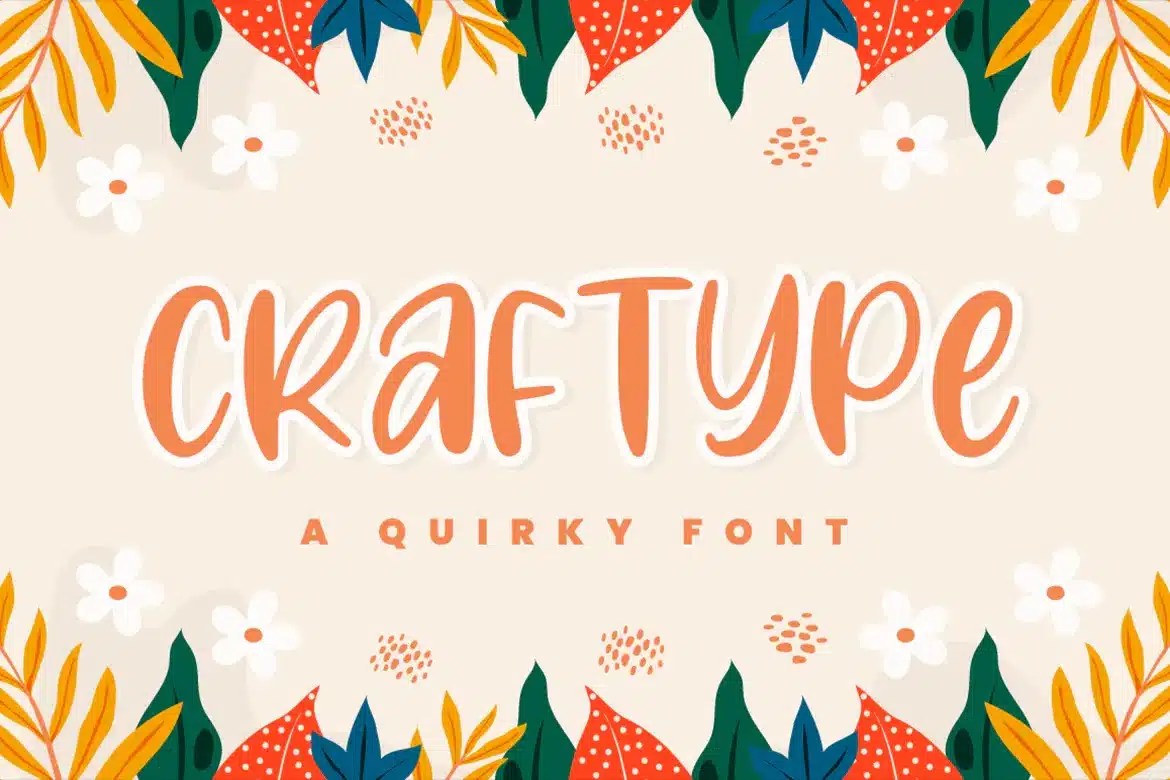
What Are Scrapbook Fonts . Every font is free to download! Here are my favorite places to find free scrapbook fonts: That's why it is so important to pick the. Fonts that can add a touch of charm, elegance, or playfulness to your layouts? Add a personal touch to your memories with a variety of stylish and fun fonts. You want to choose a font that fits the style of your scrapbook. These fonts are all easy to read and will make your scrapbook look great. Click to find the best 536 free fonts in the scrapbook style. Make your scrapbook pages stand out with free, unique fonts! Dafont (i like how you can enter the text of your choice to see what it will. In this article, we have handpicked 36 exceptional scrapbook fonts that are sure to elevate your typography game and make your creations truly stunning. Are you looking for the best scrapbook fonts to enhance your scrapbooking projects? When scrapbooking, you want to create something visually fun and memorable to look at for years to come. Another thing to consider when choosing fonts for your digital scrapbook is the style of the font. Some of the best fonts for digital scrapbooking include arial, times new roman, and helvetica.
Are you looking for the best scrapbook fonts to enhance your scrapbooking projects? These fonts are all easy to read and will make your scrapbook look great. Make your scrapbook pages stand out with free, unique fonts! When scrapbooking, you want to create something visually fun and memorable to look at for years to come. Dafont (i like how you can enter the text of your choice to see what it will. Fonts that can add a touch of charm, elegance, or playfulness to your layouts? In this article, we have handpicked 36 exceptional scrapbook fonts that are sure to elevate your typography game and make your creations truly stunning. Every font is free to download! That's why it is so important to pick the. Click to find the best 536 free fonts in the scrapbook style.
What Are Scrapbook Fonts Are you looking for the best scrapbook fonts to enhance your scrapbooking projects? Dafont (i like how you can enter the text of your choice to see what it will. Click to find the best 536 free fonts in the scrapbook style. When scrapbooking, you want to create something visually fun and memorable to look at for years to come. That's why it is so important to pick the. Add a personal touch to your memories with a variety of stylish and fun fonts. These fonts are all easy to read and will make your scrapbook look great. Are you looking for the best scrapbook fonts to enhance your scrapbooking projects? Make your scrapbook pages stand out with free, unique fonts! Fonts that can add a touch of charm, elegance, or playfulness to your layouts? Here are my favorite places to find free scrapbook fonts: Every font is free to download! Another thing to consider when choosing fonts for your digital scrapbook is the style of the font. Click to find the best 212 free fonts in the scrapbooking style. Some of the best fonts for digital scrapbooking include arial, times new roman, and helvetica. You want to choose a font that fits the style of your scrapbook.
Calligraphy Fonts, Typography Fonts, Typeface, Typography Design What Are Scrapbook Fonts Every font is free to download! Fonts that can add a touch of charm, elegance, or playfulness to your layouts? When scrapbooking, you want to create something visually fun and memorable to look at for years to come. Here are my favorite places to find free scrapbook fonts: You want to choose a font that fits the style of your. What Are Scrapbook Fonts.
There are some cute ones on this list that I haven't seen before...so What Are Scrapbook Fonts Some of the best fonts for digital scrapbooking include arial, times new roman, and helvetica. That's why it is so important to pick the. These fonts are all easy to read and will make your scrapbook look great. Every font is free to download! When scrapbooking, you want to create something visually fun and memorable to look at for years. What Are Scrapbook Fonts.
Related image Tattoo fonts cursive, Scrapbook fonts, Cursive fonts What Are Scrapbook Fonts Add a personal touch to your memories with a variety of stylish and fun fonts. That's why it is so important to pick the. You want to choose a font that fits the style of your scrapbook. When scrapbooking, you want to create something visually fun and memorable to look at for years to come. Dafont (i like how you. What Are Scrapbook Fonts.
36+ Charming Scrapbook Fonts for Scrapbooking Enthusiasts What Are Scrapbook Fonts Click to find the best 212 free fonts in the scrapbooking style. Fonts that can add a touch of charm, elegance, or playfulness to your layouts? Every font is free to download! In this article, we have handpicked 36 exceptional scrapbook fonts that are sure to elevate your typography game and make your creations truly stunning. Make your scrapbook pages. What Are Scrapbook Fonts.
A Few More Free Fonts! Fonts Scrapbook fonts, Fancy fonts, Fonts What Are Scrapbook Fonts Click to find the best 212 free fonts in the scrapbooking style. Are you looking for the best scrapbook fonts to enhance your scrapbooking projects? These fonts are all easy to read and will make your scrapbook look great. Add a personal touch to your memories with a variety of stylish and fun fonts. Make your scrapbook pages stand out. What Are Scrapbook Fonts.
alfabet Lettering alphabet, Typography alphabet, Letter collage What Are Scrapbook Fonts Some of the best fonts for digital scrapbooking include arial, times new roman, and helvetica. Every font is free to download! Click to find the best 536 free fonts in the scrapbook style. That's why it is so important to pick the. Every font is free to download! Fonts that can add a touch of charm, elegance, or playfulness to. What Are Scrapbook Fonts.
digital scrapbooking font Scrapbook fonts, Digital scrapbooking, Cool What Are Scrapbook Fonts Are you looking for the best scrapbook fonts to enhance your scrapbooking projects? Here are my favorite places to find free scrapbook fonts: Some of the best fonts for digital scrapbooking include arial, times new roman, and helvetica. When scrapbooking, you want to create something visually fun and memorable to look at for years to come. In this article, we. What Are Scrapbook Fonts.